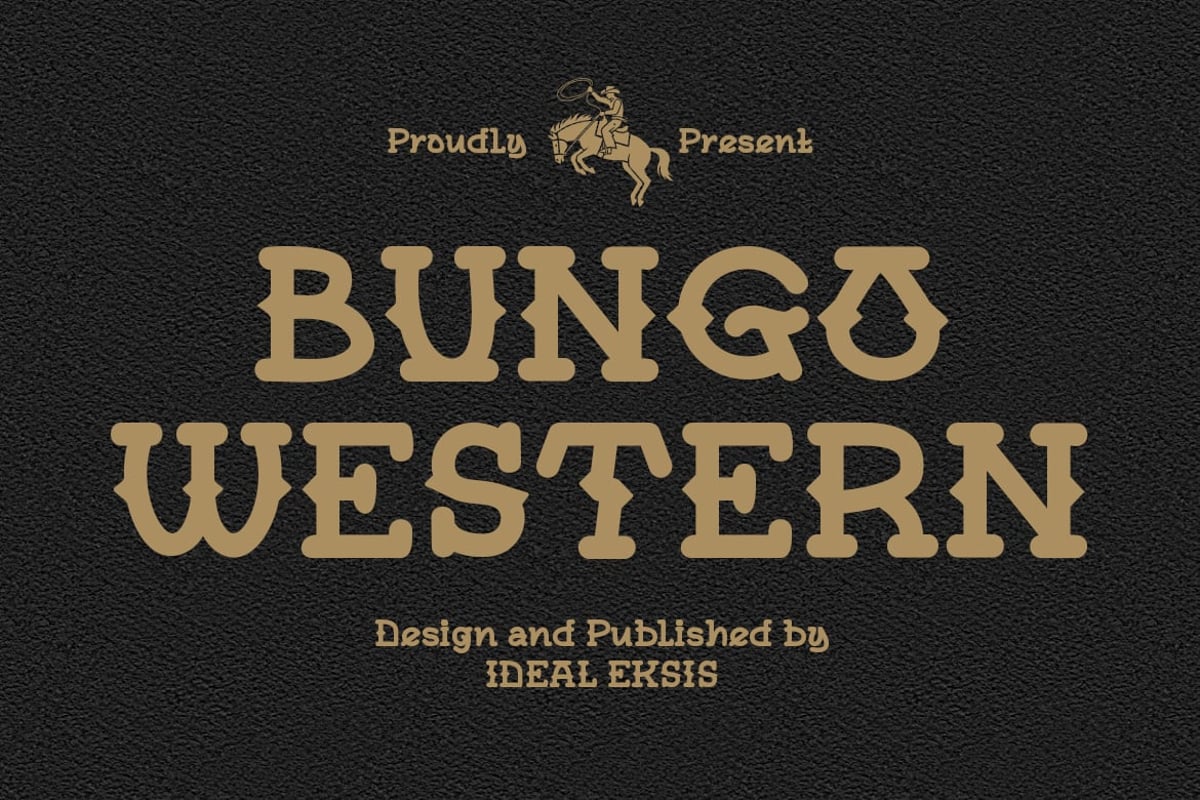
Bungo Western - Western Display Font
Saddle up with this rugged slab serif that captures the untamed spirit of the American frontier.
This robust typeface delivers a distinct western aesthetic through heavy, uniform strokes and thick, blocky serifs that create a powerful visual foundation. The standout feature is its decorative spur positioned at the midpoint of vertical stems, paying homage to authentic 19th-century wood type craftsmanship.